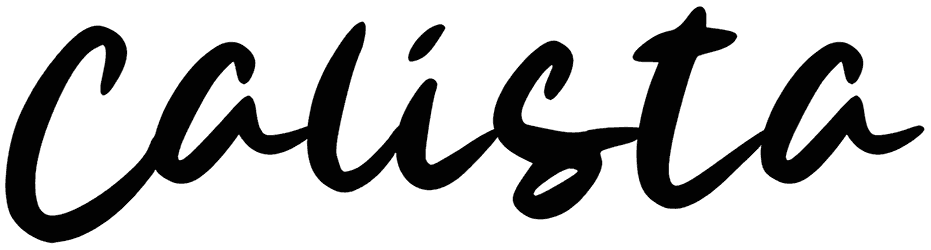
Calista Font
It’s worth a shot; handwritten font with a cheery and pleasing design can push fresh designs and update them promptly. Calista is specifically what you called for to develop a considerable outcome of posters, greeting cards, comic book covers, or whatnot.